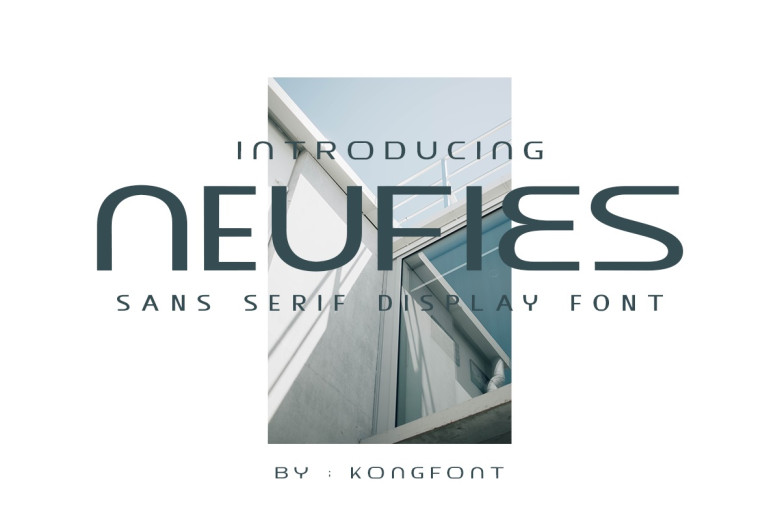
Neufies is a Modern Display Sans-Serif Font. If you are looking for an intelligible sans-serif font that is easy on the eye and most appropriate for usage, then the Neufies Modern Futuristic Font is perhaps the best fit for your project. This font can be said to be a modern font with a very simple style in as much as it can be classified under the minimalistic category. It can be used which is a digital font and a print font, for writing on a blog, magazine or on the cover of a book.
Neufies Sans Serif Font